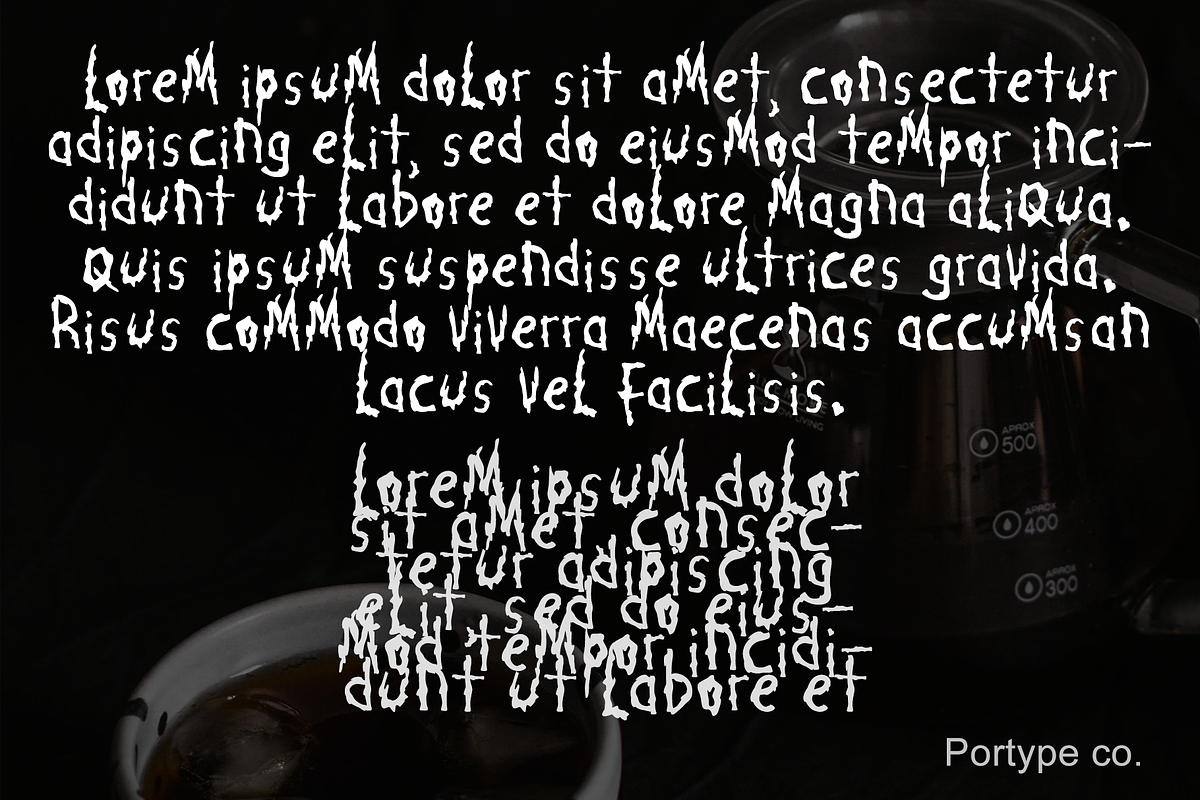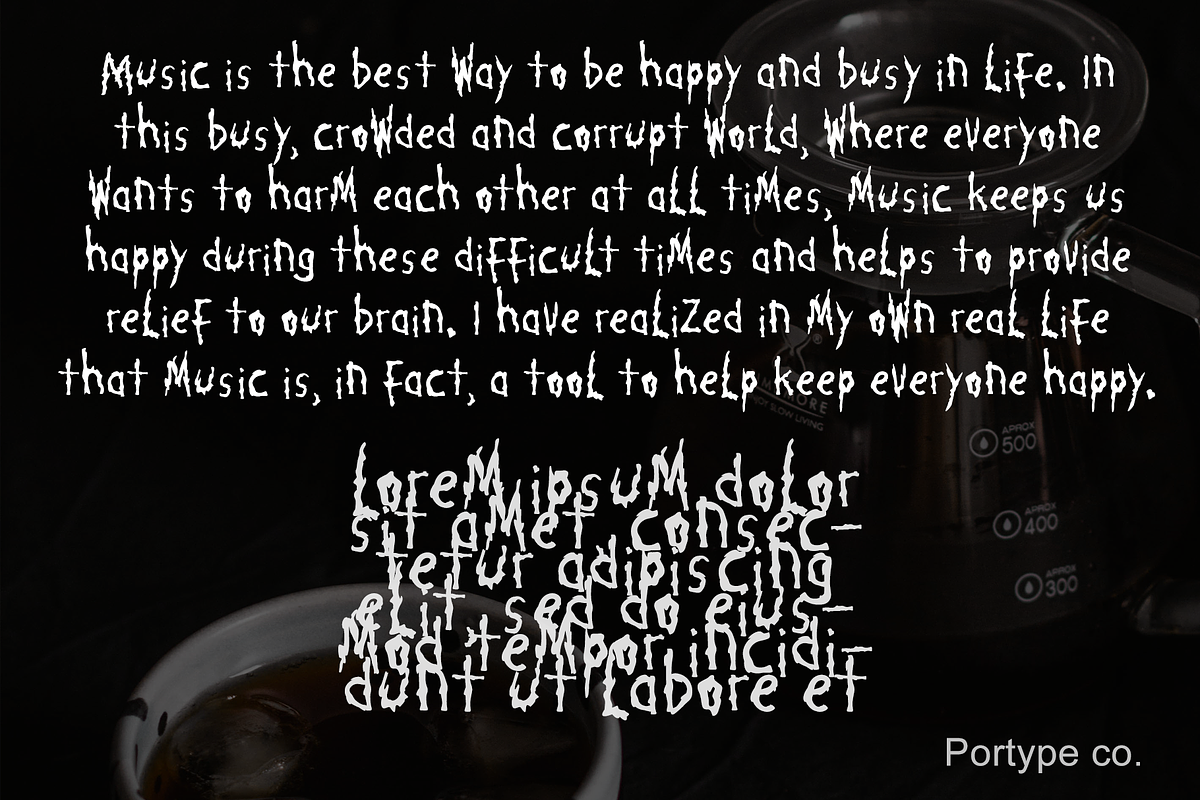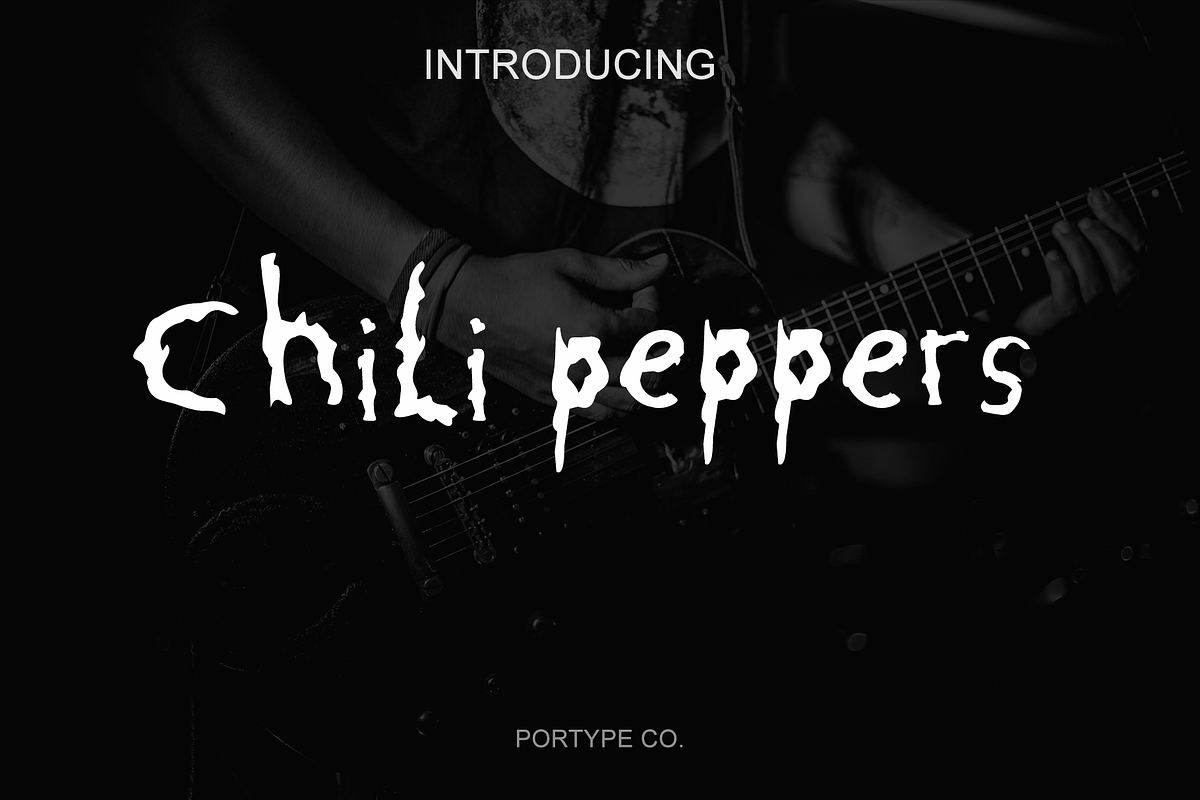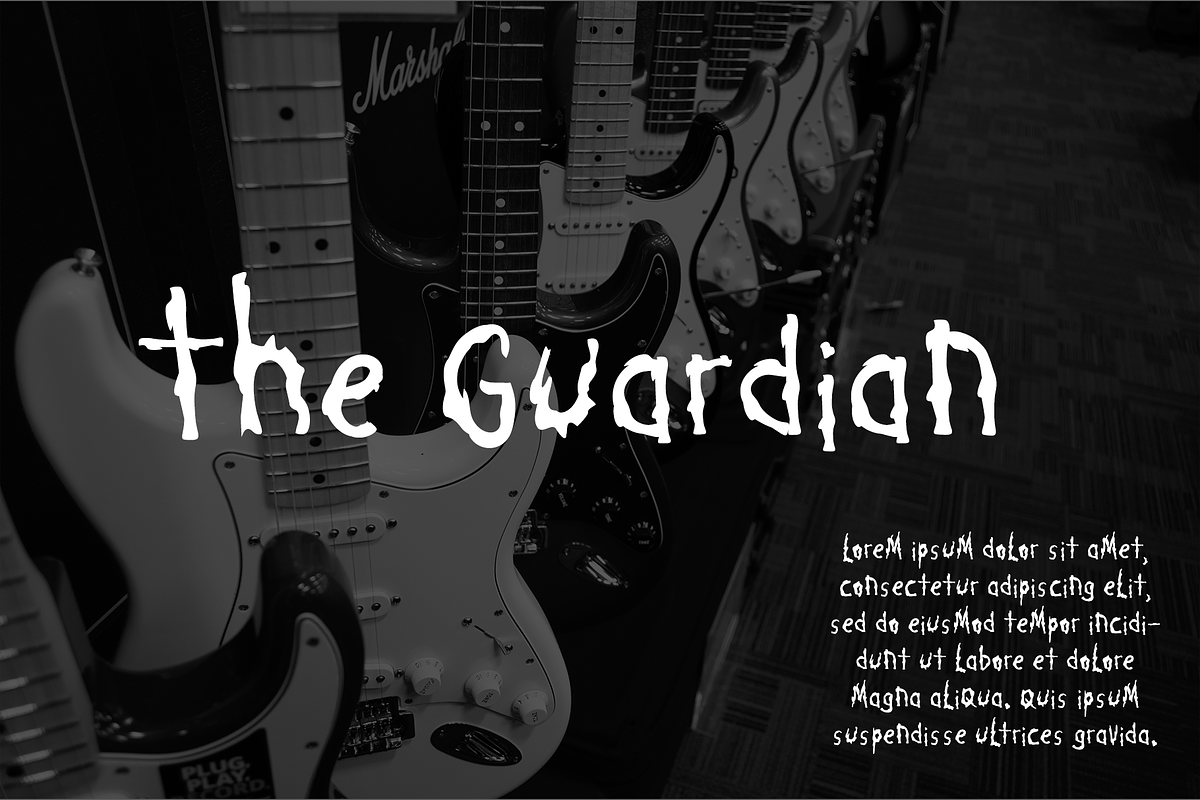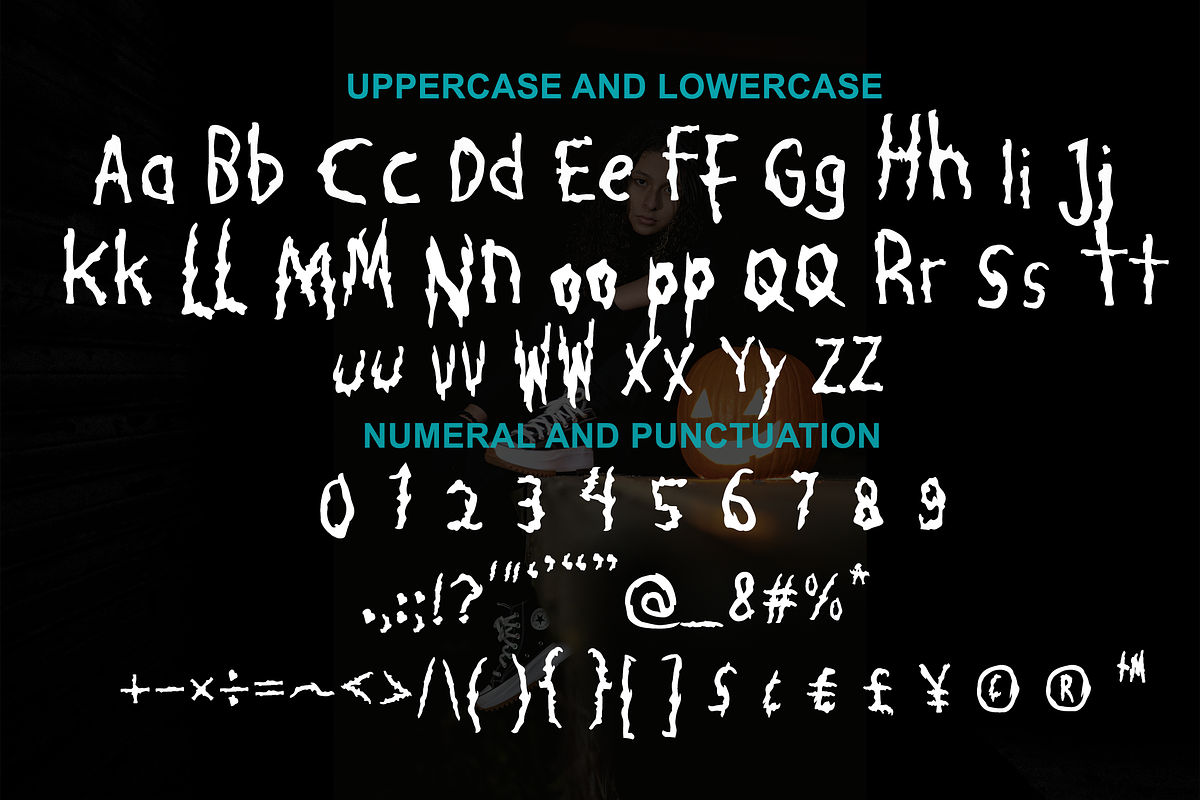
Chili peppers - Musicly
Chili peppers is a Beatiful font. It was inspired by Music Waves. The font look playful. Suitable for the Music theme. It's perfect for T-Shirt Design, POD (Print On Demand) and stand-out branding as well. Suitable for any design needs, branding, urban design, modern advertising design, Book/Cover Title, special events, adventures, headlines, clothing and more.